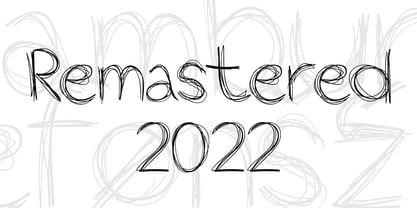
Wopi Script No 2
by 066.FONT
The Wopi Script No 2 Font Family was designed by Piotr Wozniak and published by 066.FONT. Wopi Script No 2 contains 1 styles.
Wopi Script No 2 is a display font in which each letter has been handwritten, giving it an authentic and original character. It exudes a varied and extravagant style, and with its daring and sophisticated letterforms, Wopi Script No 2 attracts attention and gives projects a touch of nonchalance. It is ideal for creative projects such as posters, invitations or branding materials, where a striking and distinctive text finish is sought that stands out. Remastered in 2022.
The journey into the world of typefaces began in 1997. At the age of 17, Piotr Wozniak designed his first typeface, Kropki, which was later published by Linotype. Since 1999, as 066.FONT, he has been creating experimental and alternative fonts, mainly inspired by the punk zines of the 90s. Today, he and his wife run a bistro in Krakow, Poland. However, he has not given up his passion for type design.